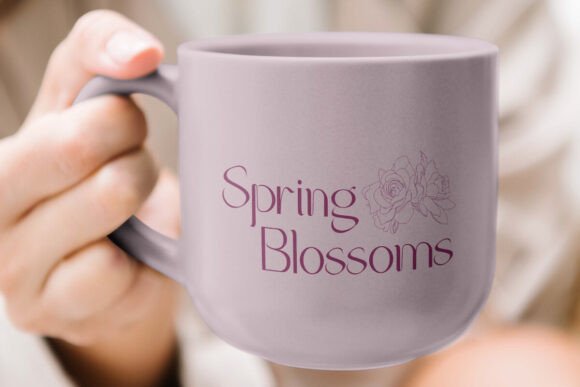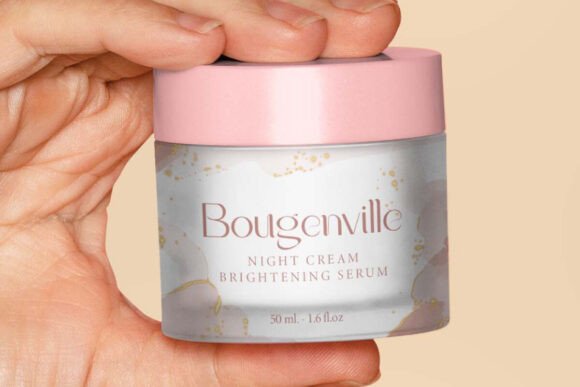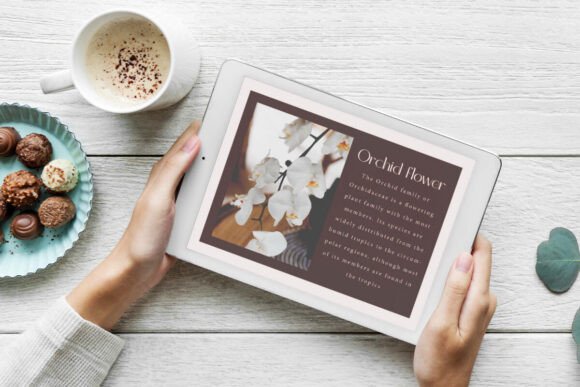
Bucket Flower Font
Bucket Flower Font is a beautiful, sophisticated serif display font with a special curvy style. This font has wavy lines like a beautiful and romantic bunch of flowers. It will suit many designs, such as brand image, custom design, gift box, invitation, label, poster, product packaging, quote, signage, stationery, website page, and more!